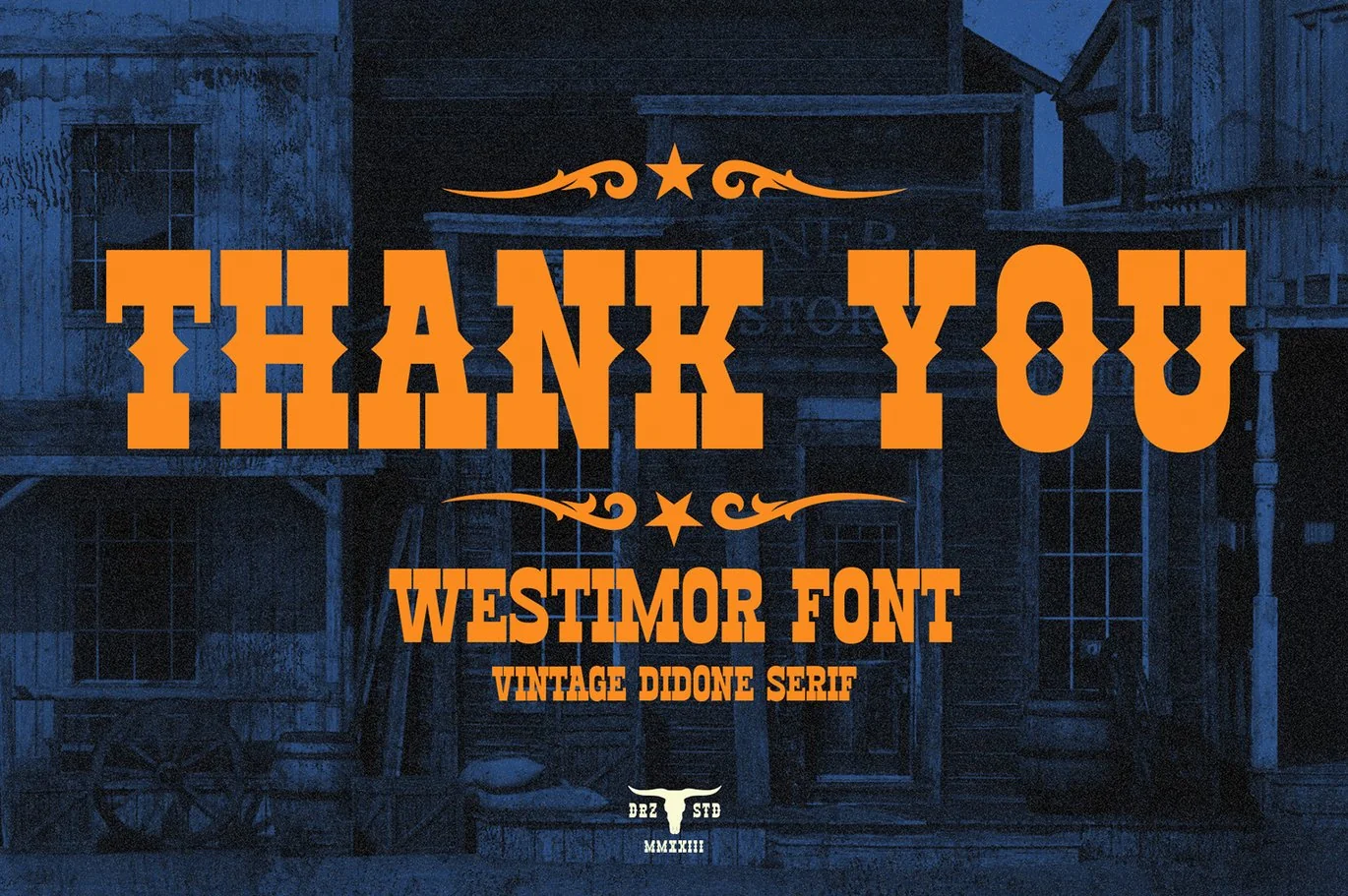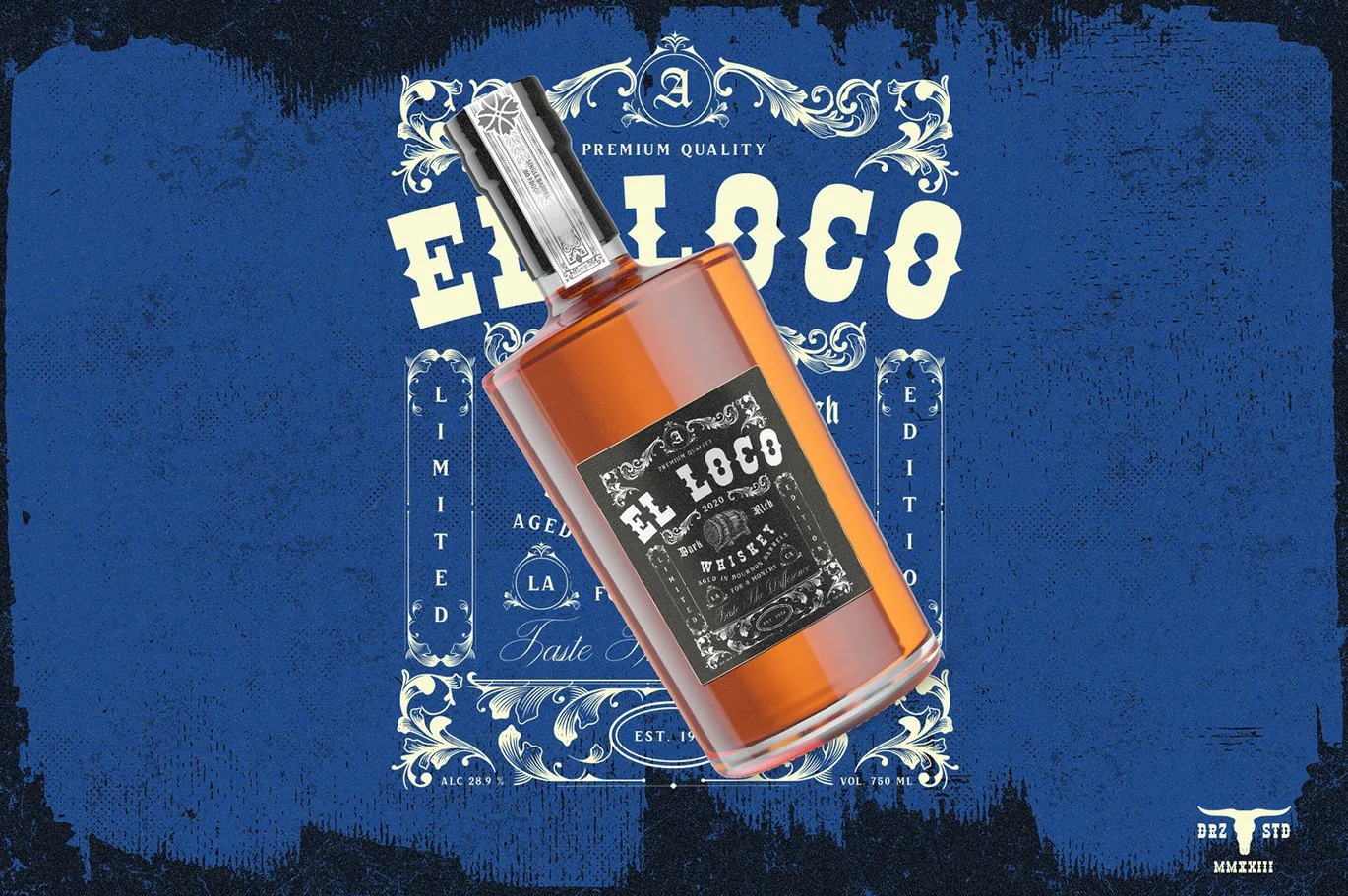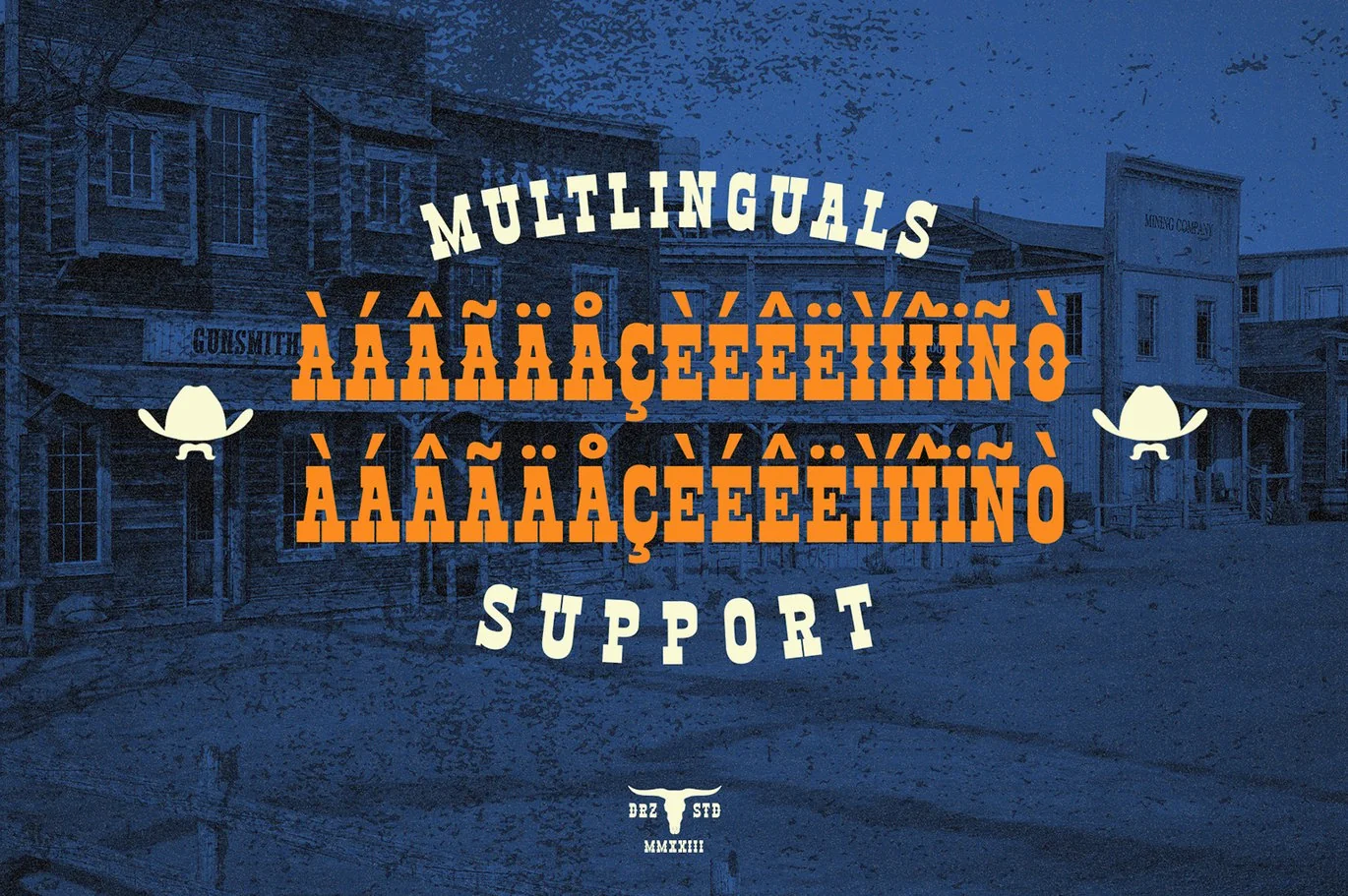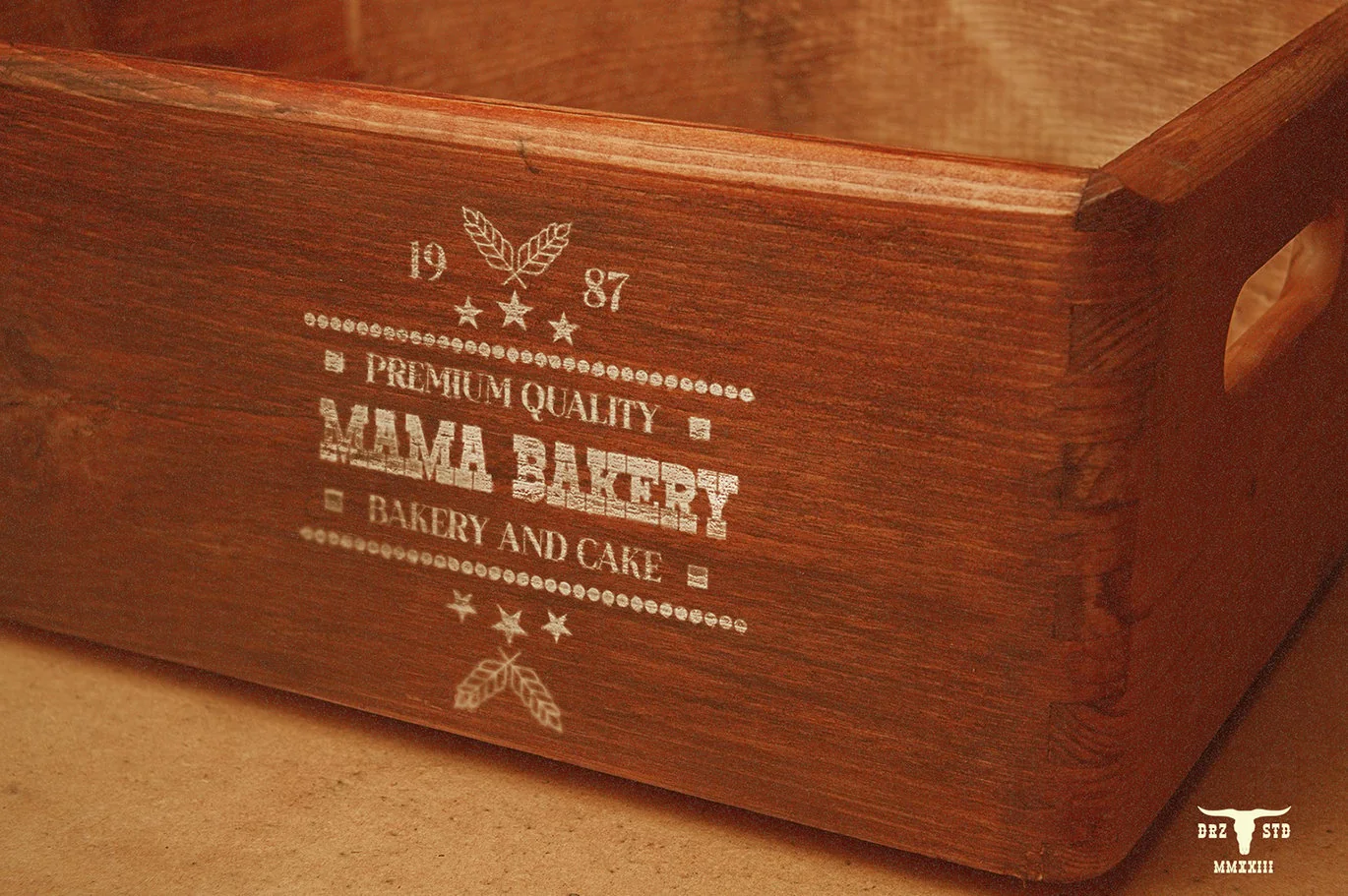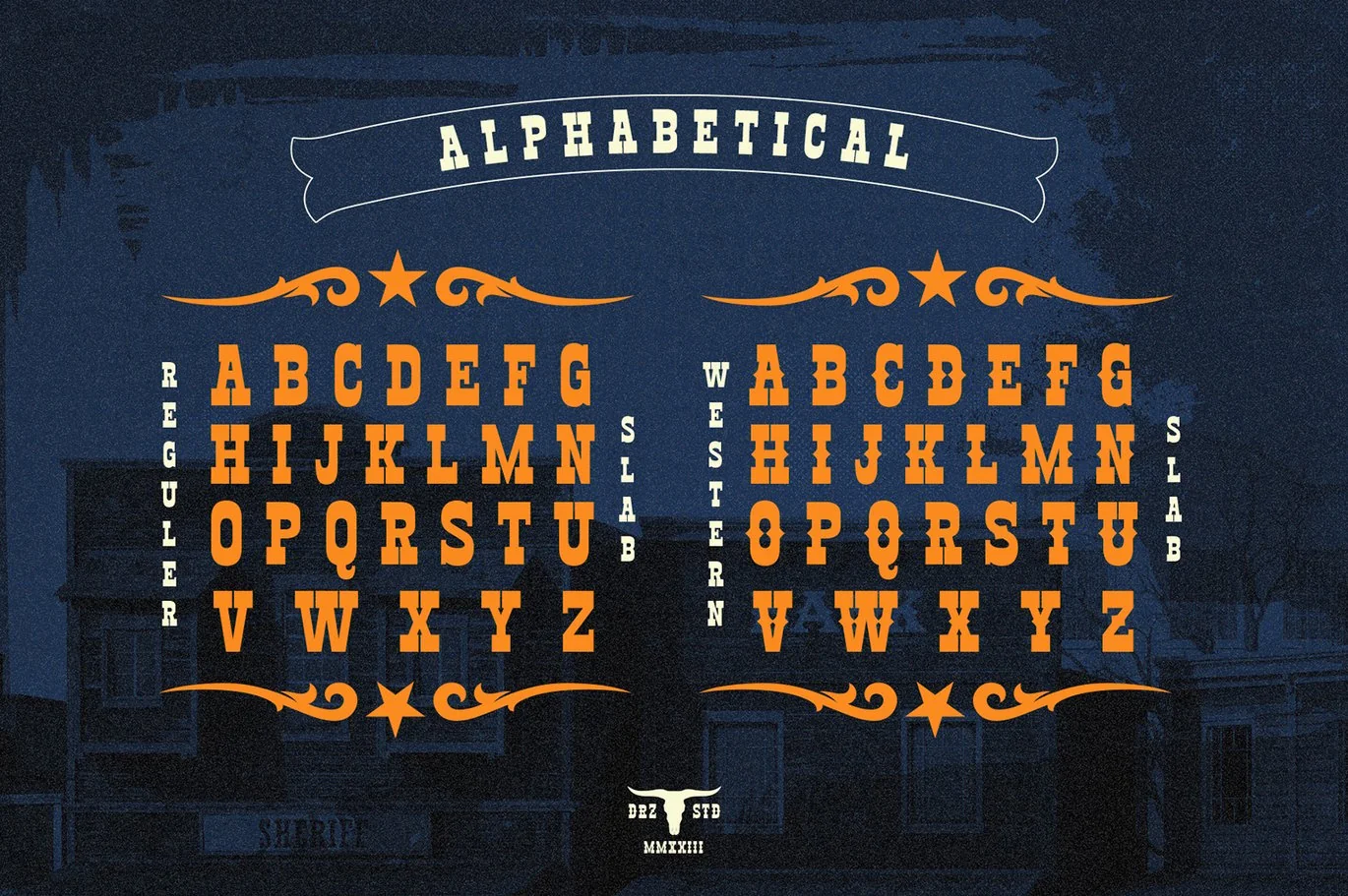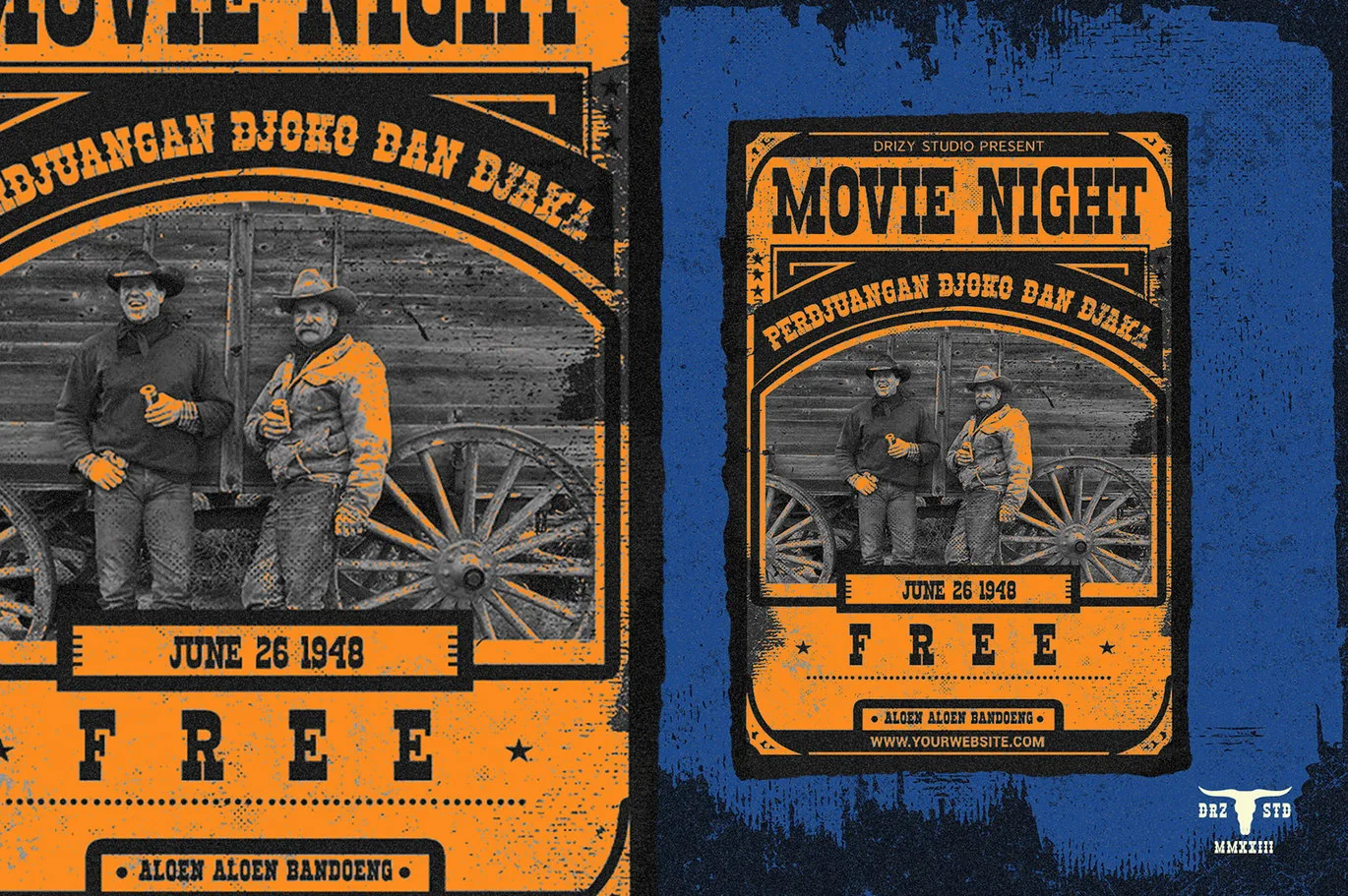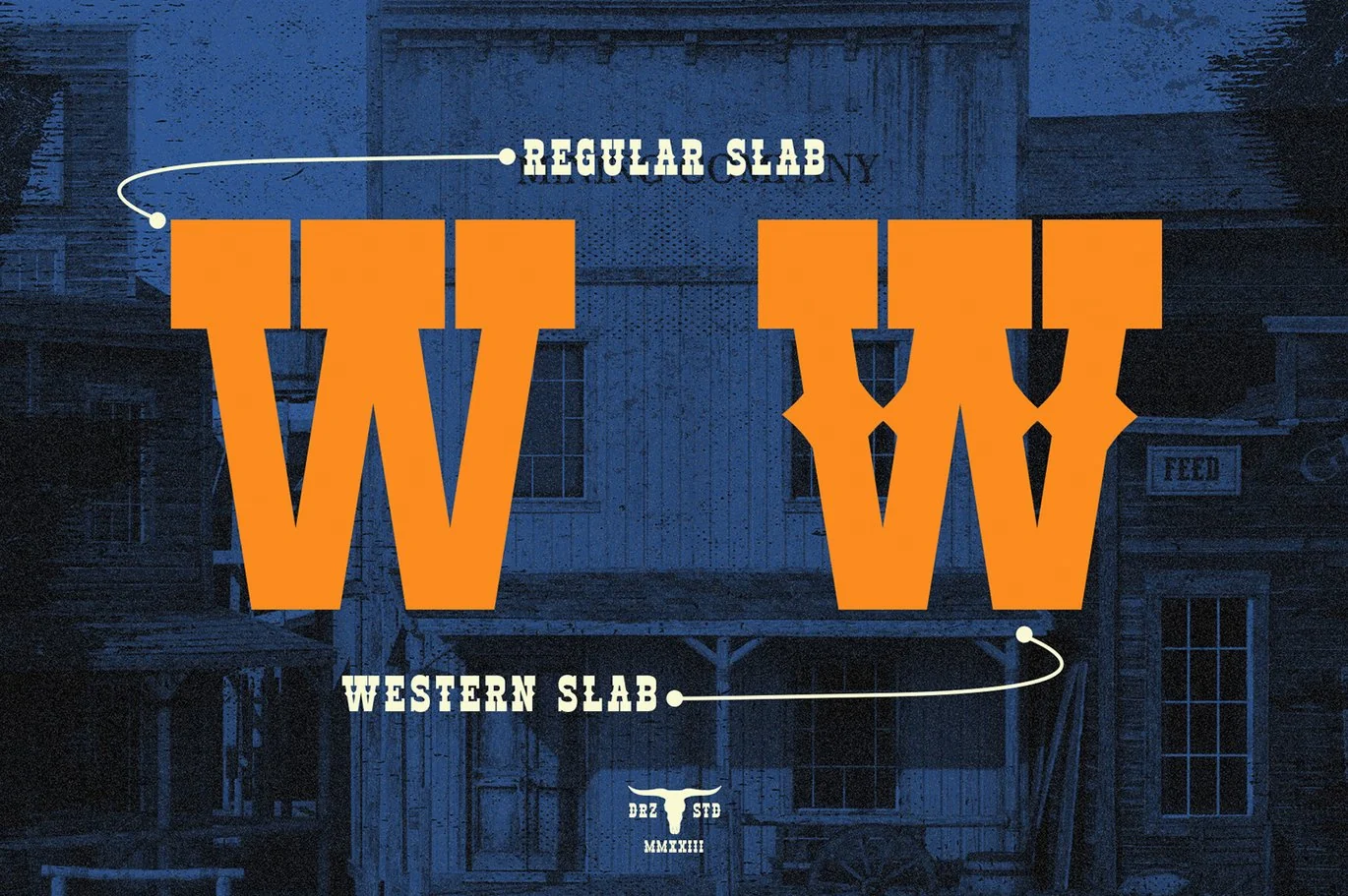
Westimor – Western Retro Font Family
Westimor is a Retro Western-style Font Family from Drizy studio. Offering all the basic styles you will need for any retro Western theme and projects.
Westimor Features:
Numeral & Punctuation
Multilinguals
Variants:
Regular Slab
Western Slab